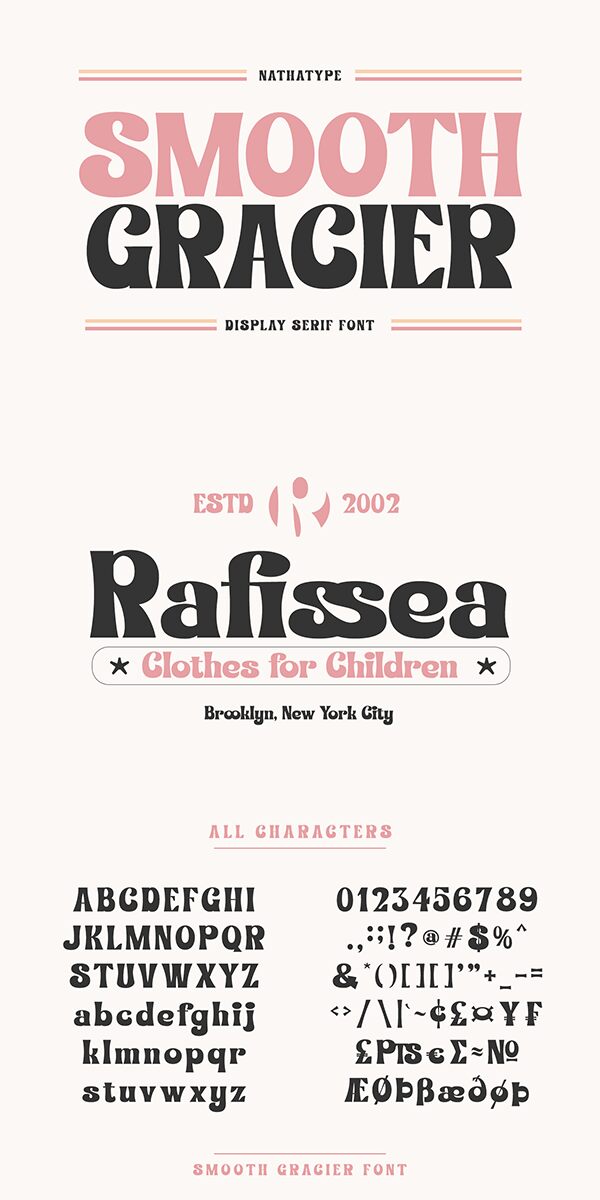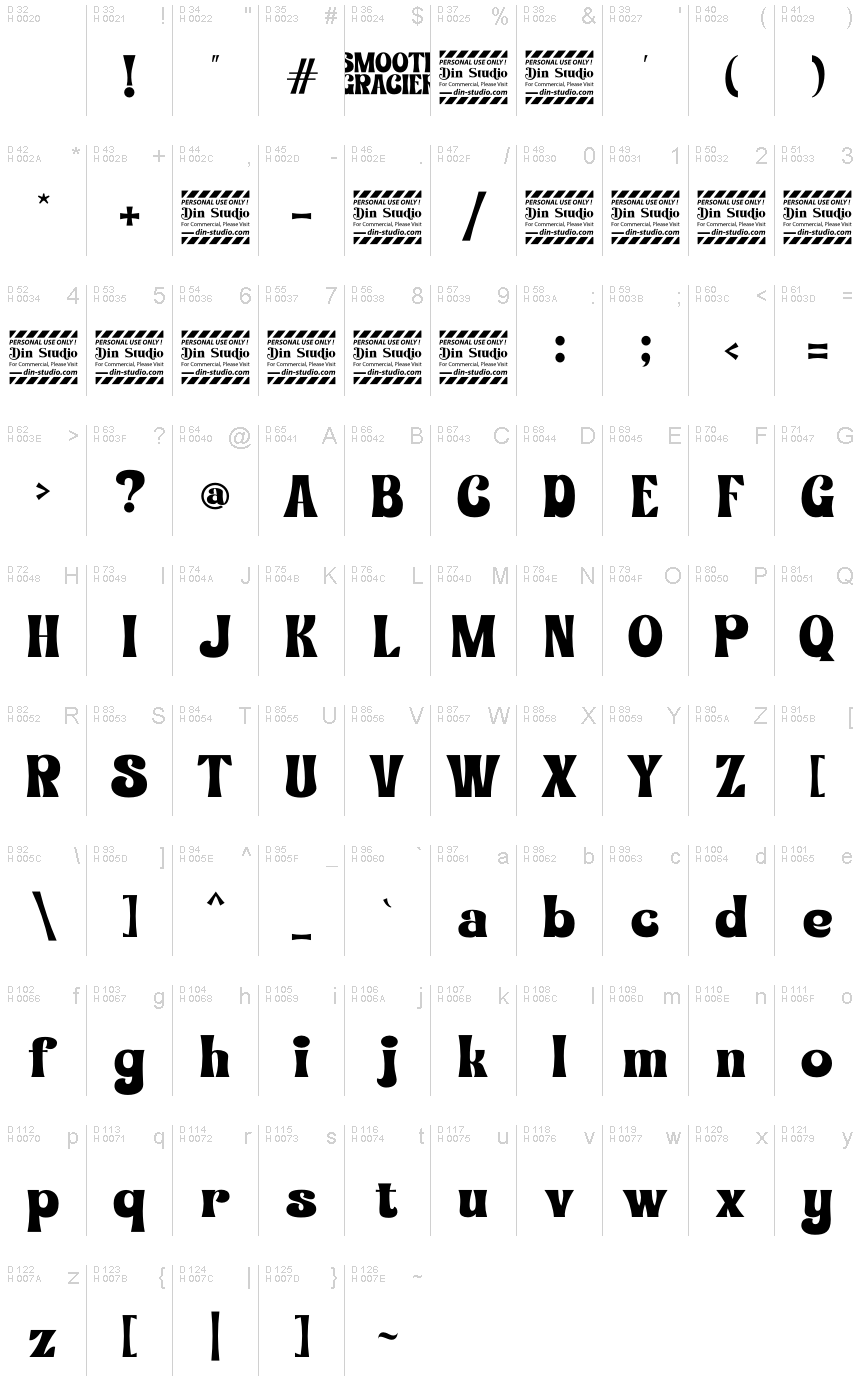
Smooth Gracier, designed by Nathatype, is a display font that exudes a groovy flair, reminiscent of design trends from the 60s and 70s. Its bold strokes and fluid curves create an aesthetic that is both playful and confident, inviting a sense of nostalgia while being firmly rooted in modern design sensibilities. Its unique character shapes are particularly striking, offering a sense of movement and energy that can bring any message to life.
This font is ideally suited for projects that demand attention; think vibrant posters, eye-catching logos, stylish merchandise branding or any creative endeavor that benefits from a touch of retro charm. Smooth Gracier's distinctive style ensures it stands out in any context where personality and impact are key.
Smooth Gracier is Playful Display Font